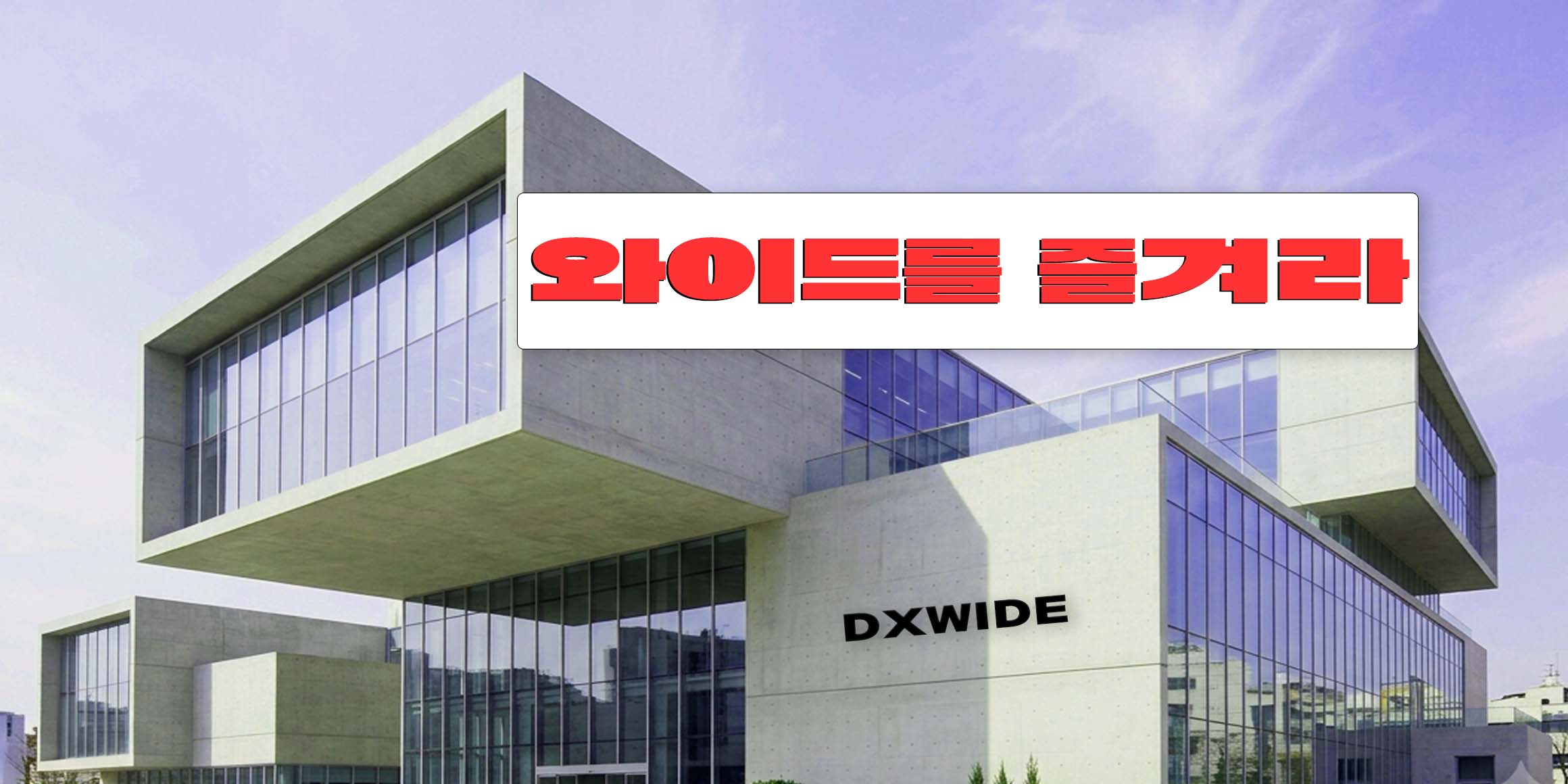
Sandoll Press
Sandoll
Sandoll Press is the fourth product of the generational mirror project, reflecting the speeding sensation of the nonstop production and advancement of popular culture.
This font's features are the heavy and full strokes with the compound Moim font, the wide and low letters, as well as the tilt to invoke the image of the high speeds of mass production.
• Kim Jinhee Choi sungwoo